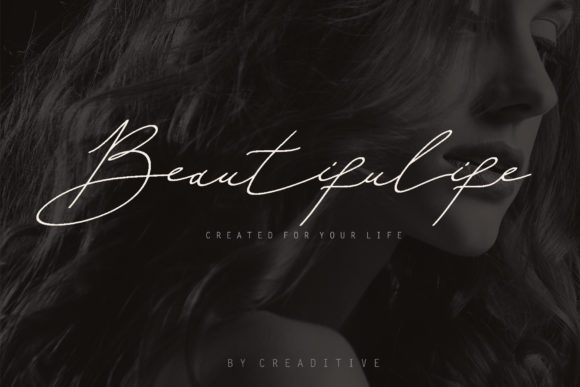
Step into the world of typography and let Beautifulife Font cast its enchanting spell on your designs. This exquisite script font, meticulously crafted by Creaditive Design, is a symphony of elegance, individuality, and boldness. As its name suggests, Beautifulife adds an irresistibly charming touch to every letter, transforming your words into captivating works of art.
Indulge in the font's dynamic elements that dance and flow seamlessly across your designs. Its bold strokes exude confidence and make a statement that demands attention. Whether you're creating logos, branding materials, social media graphics, or wedding invitations, Beautifulife Font is your perfect partner in crime.
With Beautifulife Font, you'll never have to worry about blending in. Its uniqueness shines through, making your designs stand out from the mundane. It's the perfect choice for those who crave originality, who want their words to resonate with a captivating voice that speaks volumes.
Unlock the true potential of your designs and let Beautifulife Font take center stage. Its effortless beauty and magnetic pull will captivate your audience, leaving them mesmerized by the sheer brilliance of your creations. Transform your projects into unforgettable experiences that linger in the minds of all who encounter them.
Embrace the power of Beautifulife Font and witness the transformation of your designs. Unleash your creativity, let your imagination soar, and turn your artistic visions into tangible masterpieces. Let Beautifulife Font be your muse, your guiding star, as you embark on a journey of typographic brilliance.